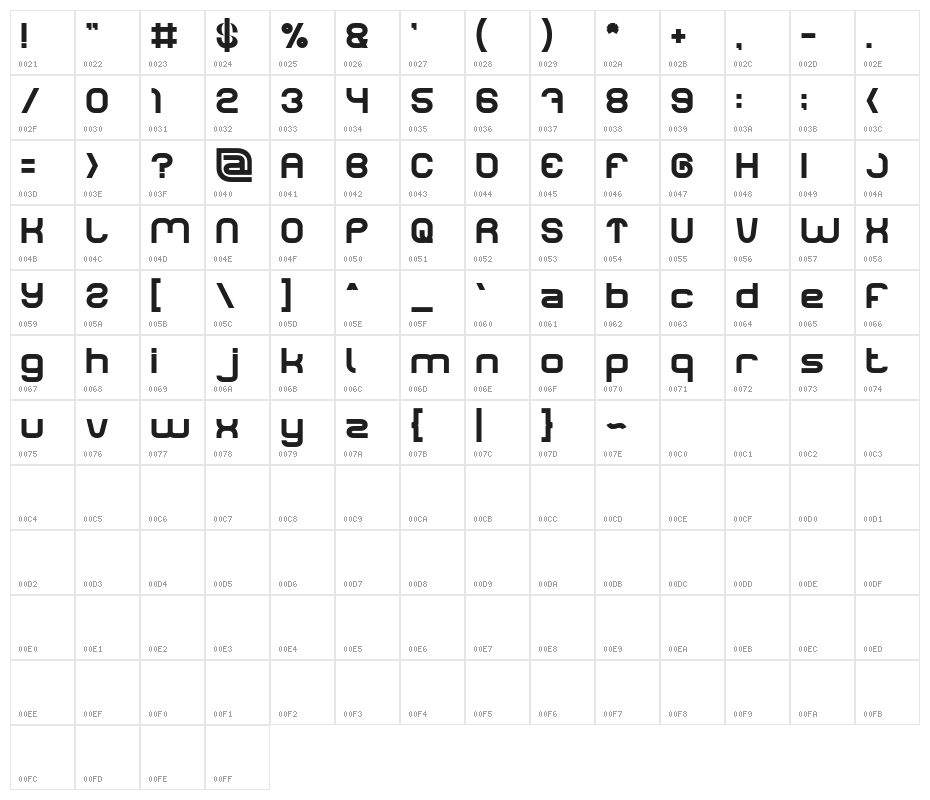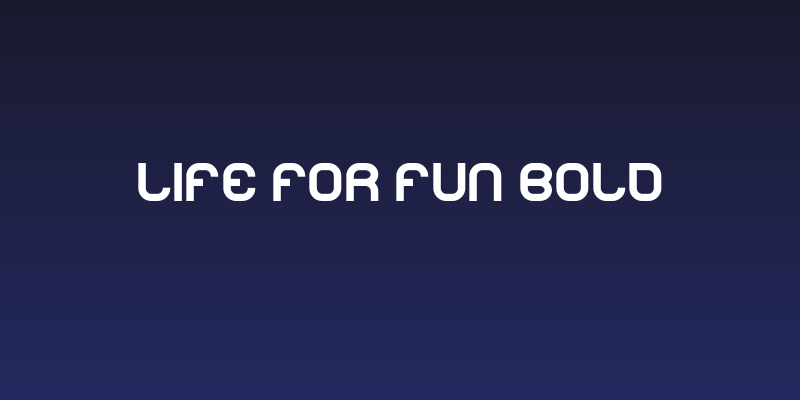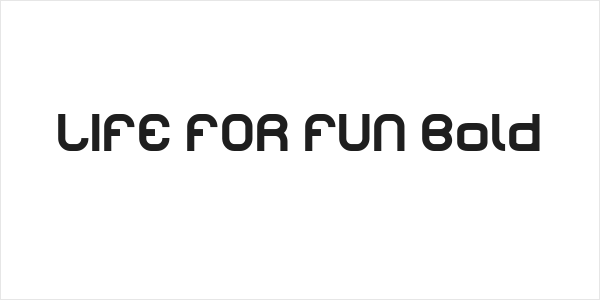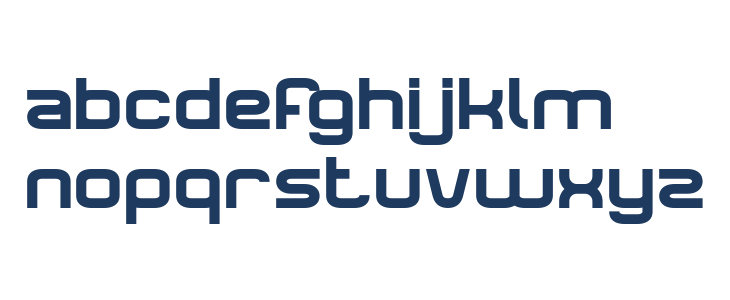
LIFE FOR FUN Bold Font
LIFE FOR FUN Bold Description
This font features a bold, modern design with a geometric and slightly futuristic aesthetic. The characters are constructed with uniform stroke widths, giving it a clean and structured appearance. The rounded edges and smooth curves add a touch of softness, balancing the overall boldness. The uppercase letters are distinct with a unique style, particularly noticeable in characters like 'G' and 'Q', which have a contemporary twist. The lowercase letters maintain the geometric theme, offering a cohesive look across the typeface. Numbers and special characters are designed to match the bold, modern style, making them easily legible and visually appealing.
| Proposed Projects | Ideal for technology branding, modern advertising, and futuristic design projects. |